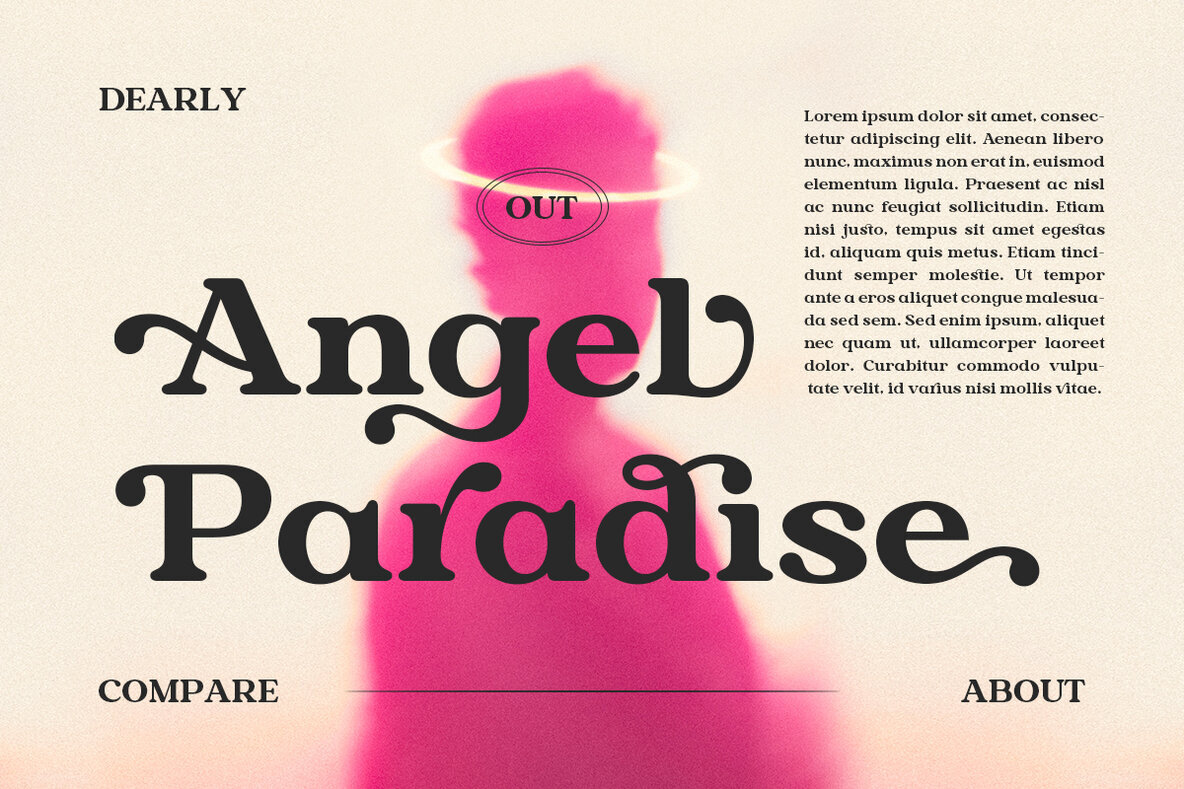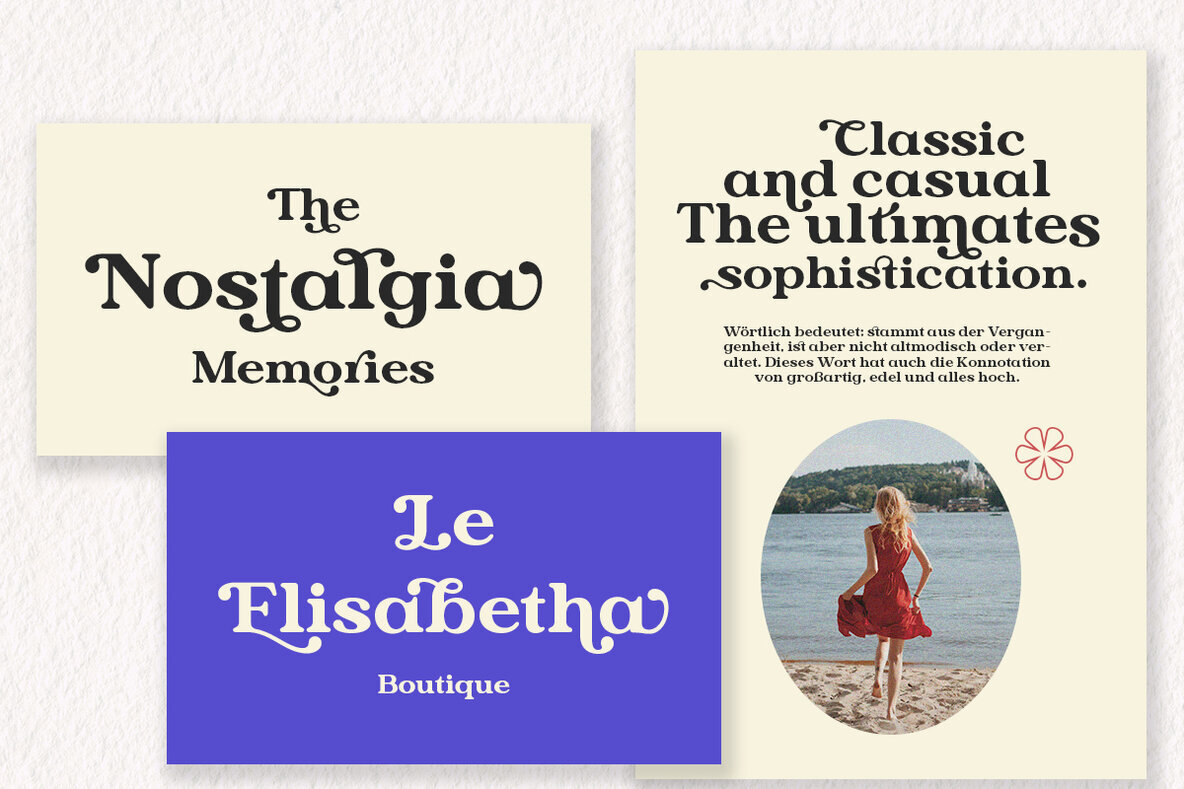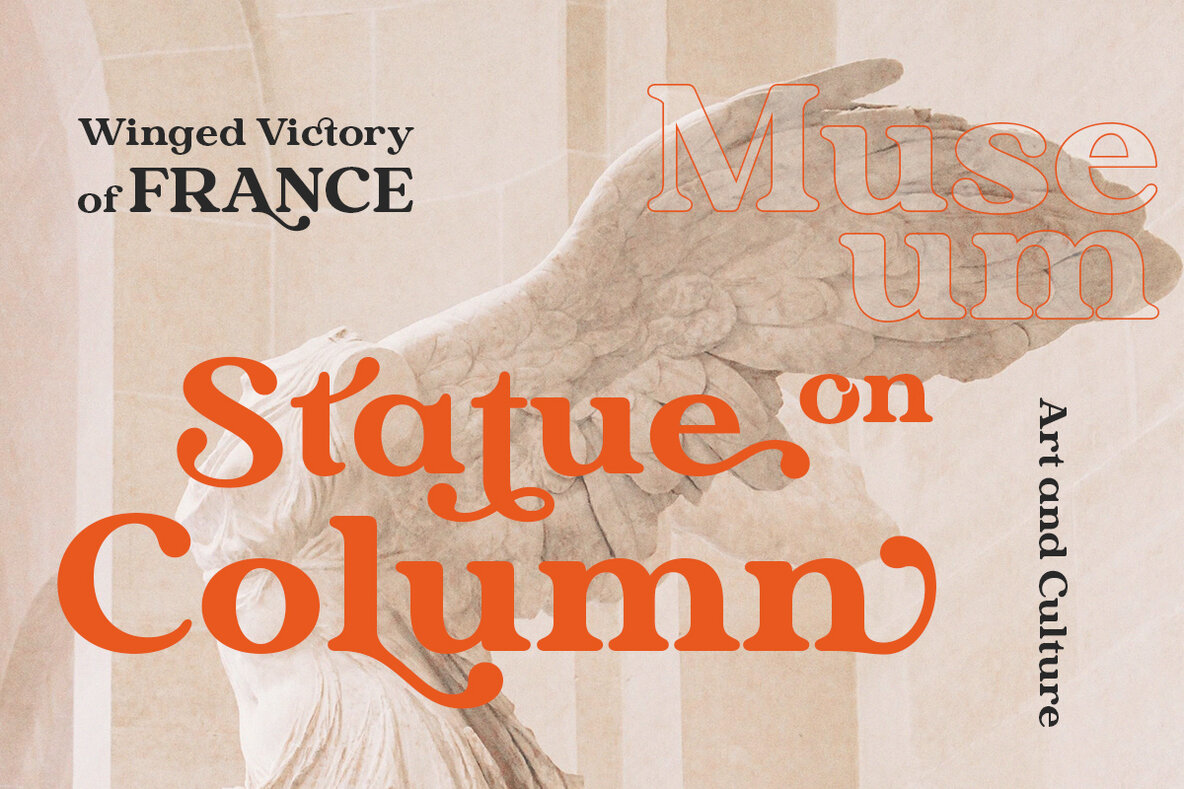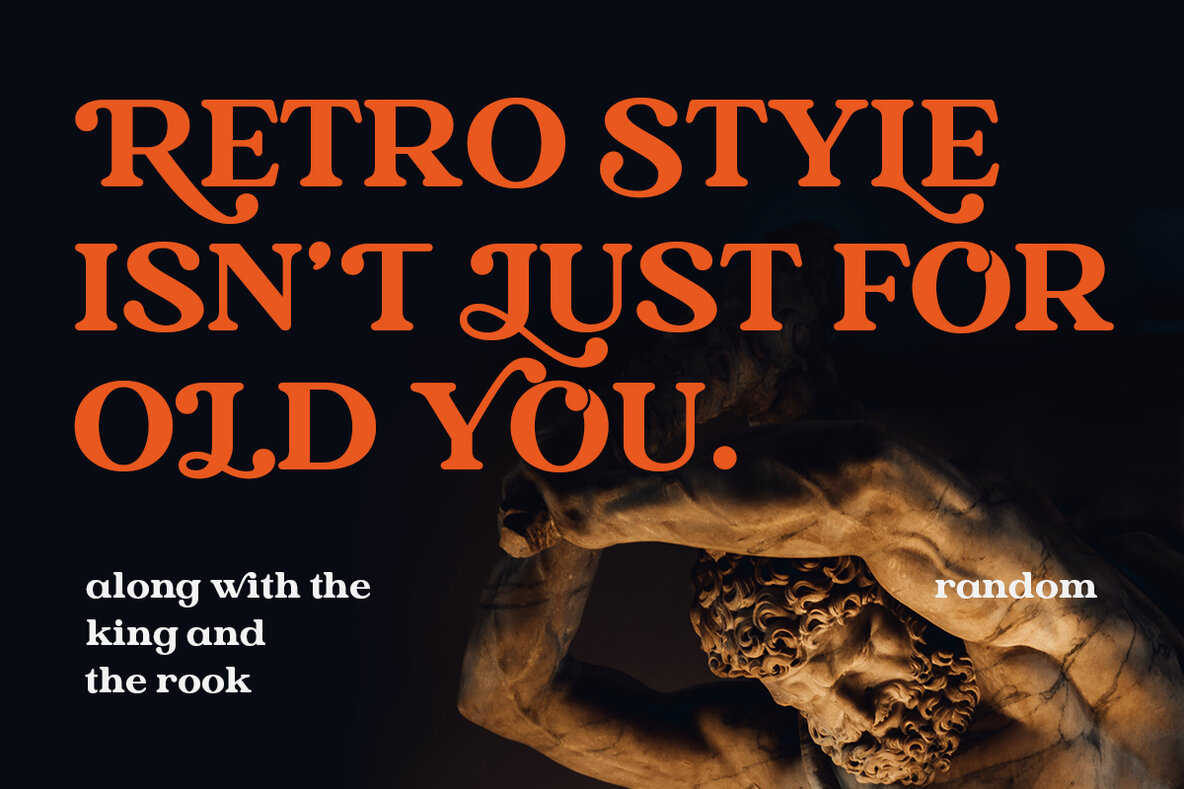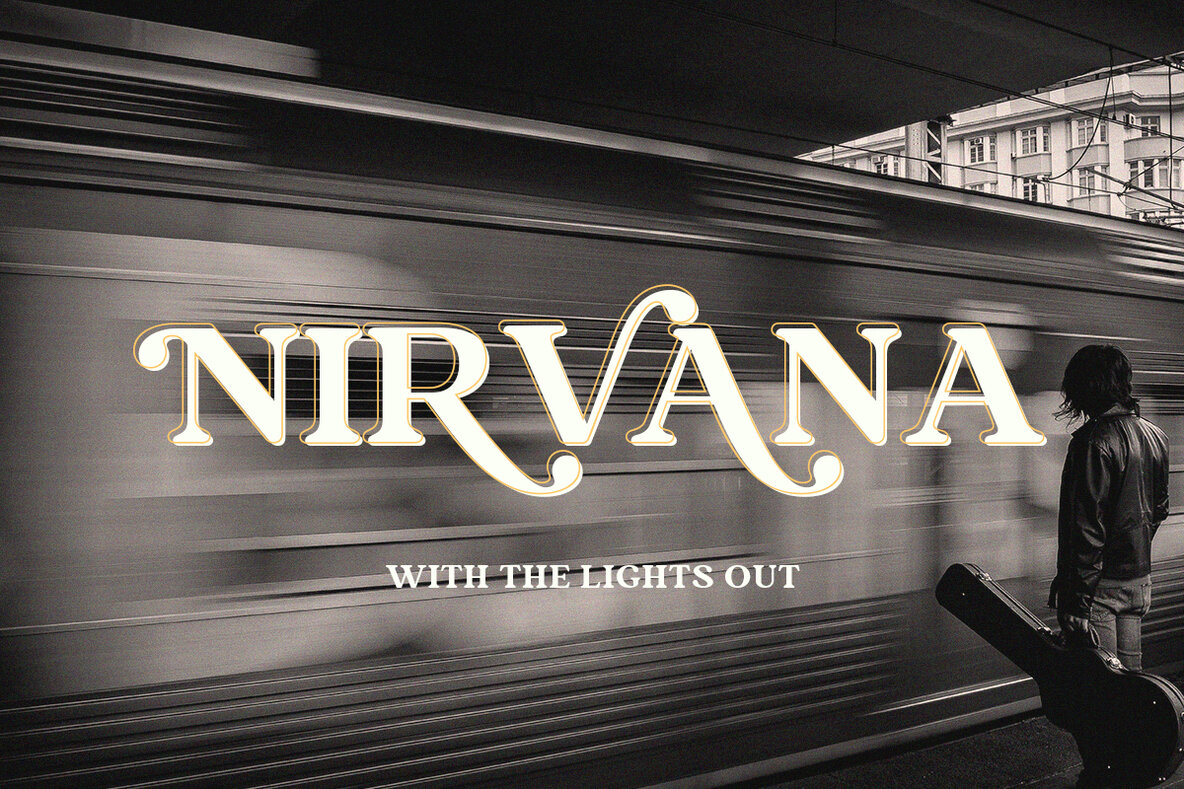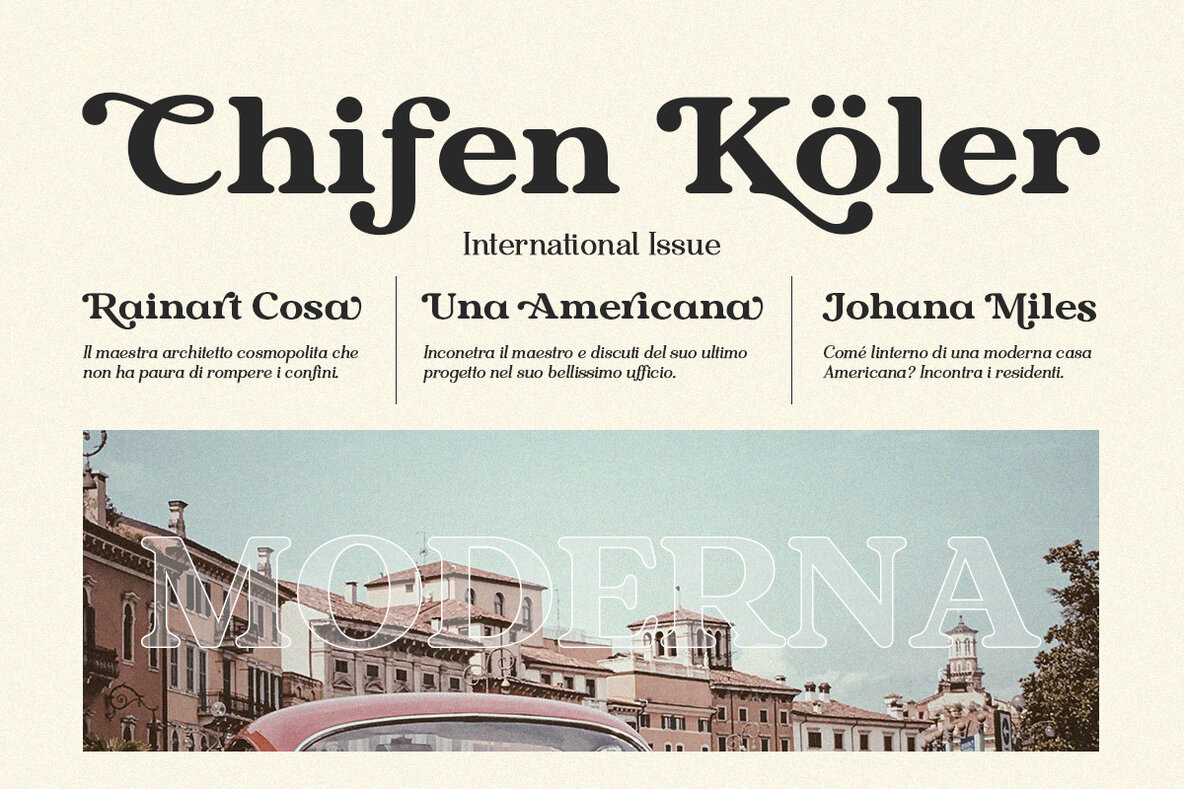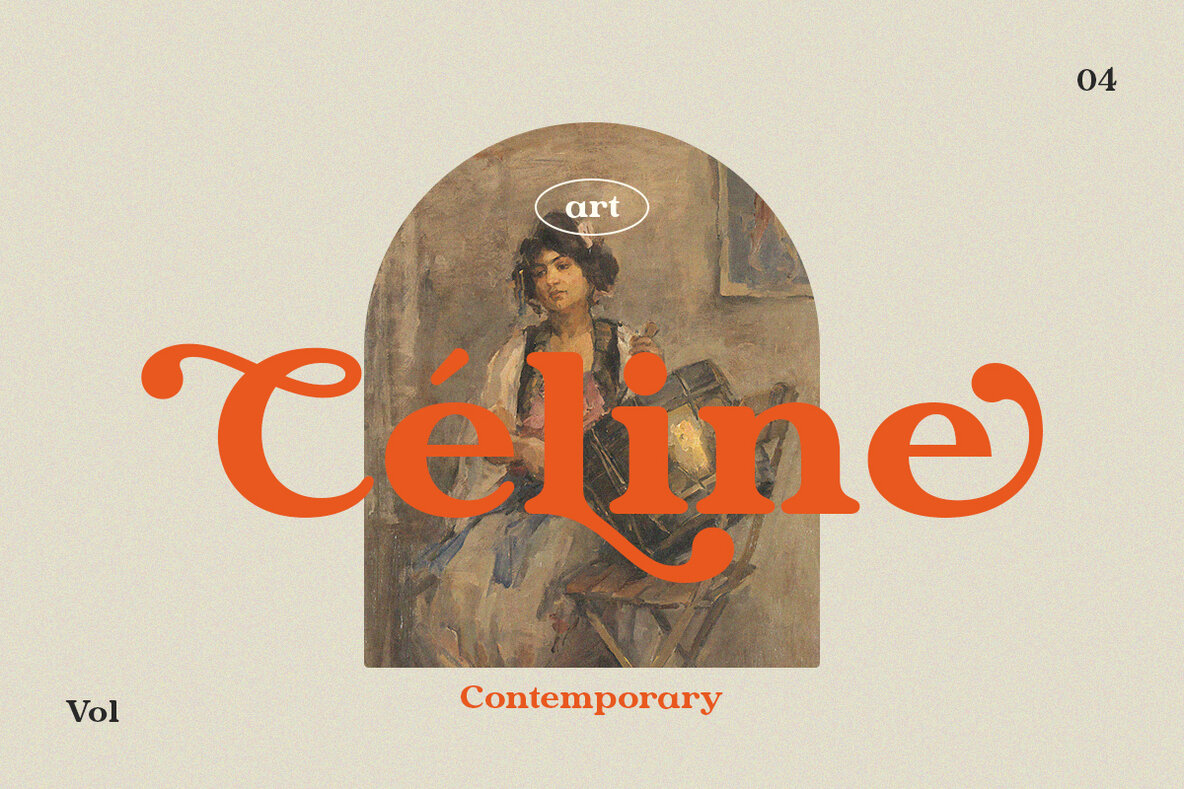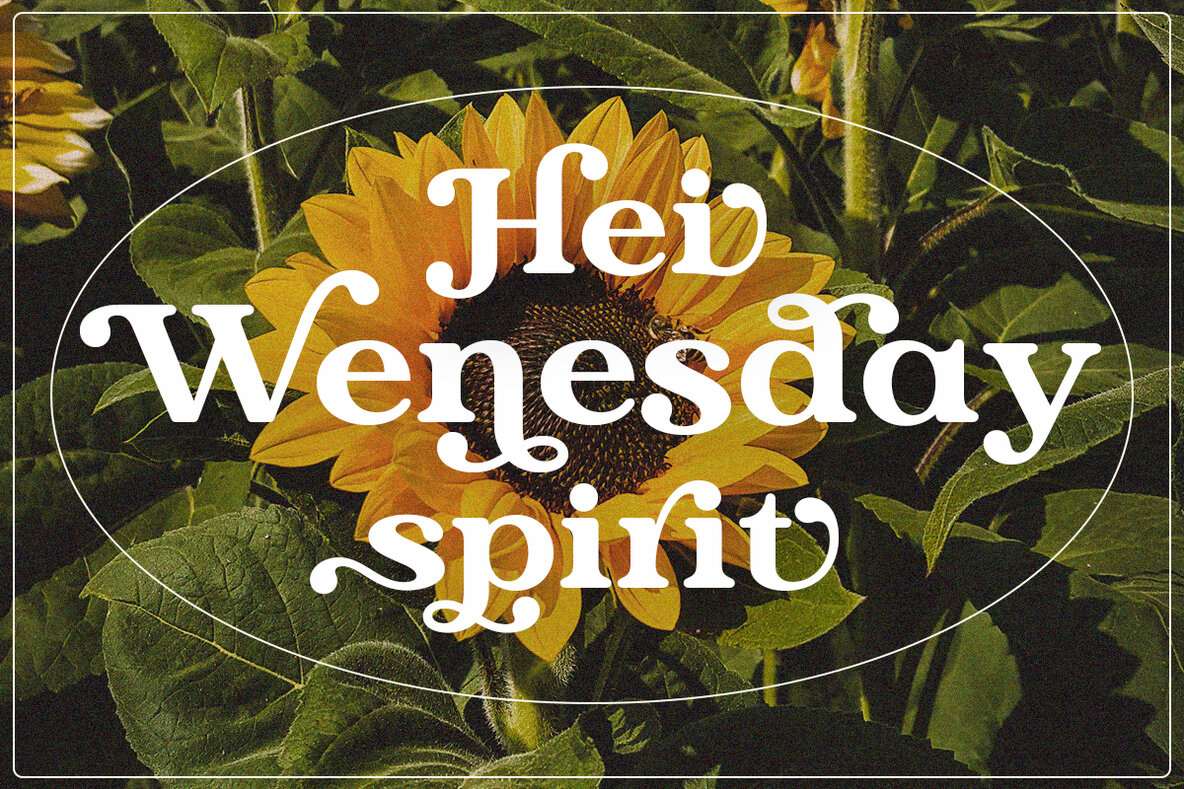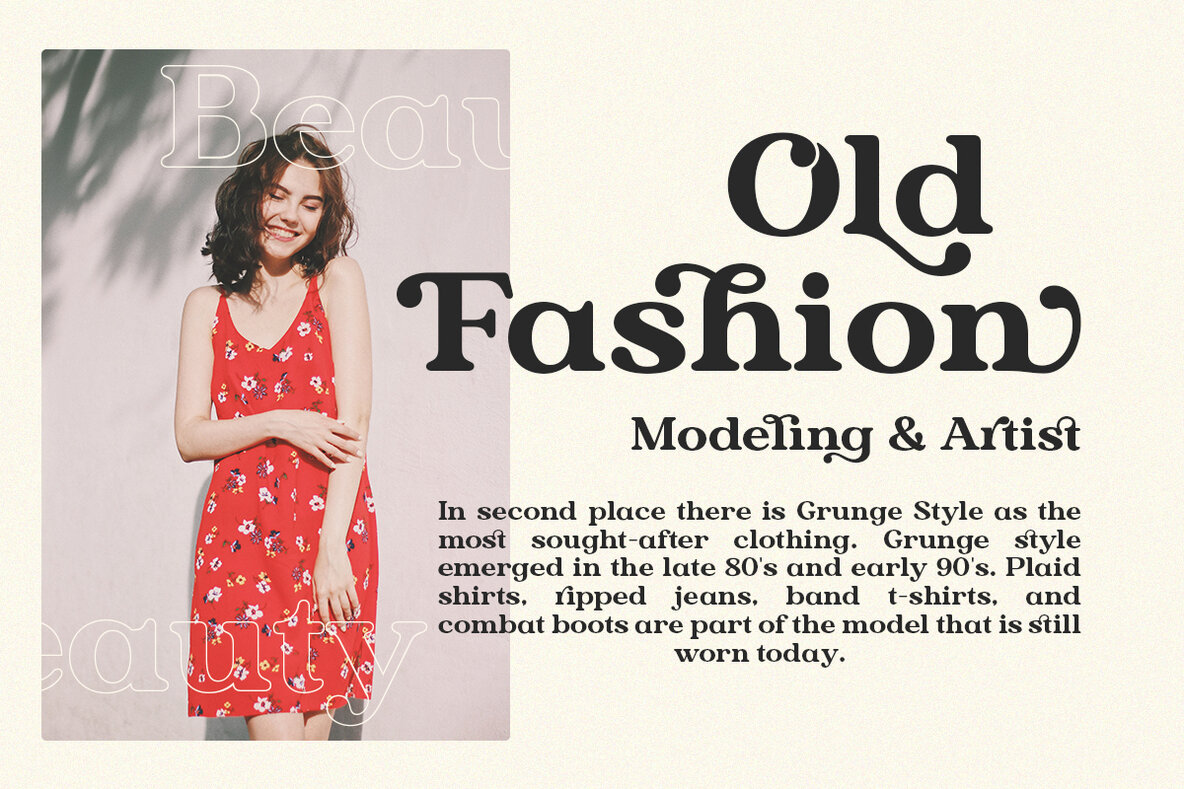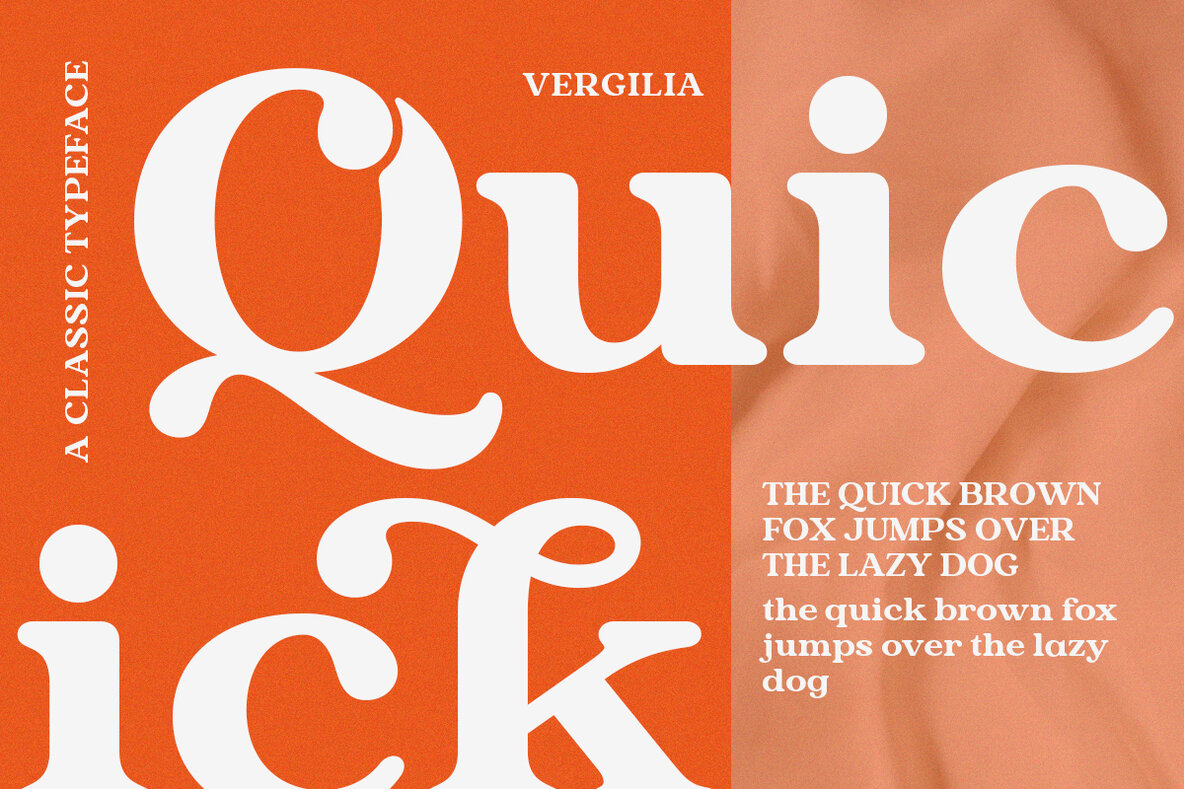
Vergilia Font
Vergilia is a sophisticated serif font that seamlessly blends modernity with a hint of vintage allure. Its bold letterforms ensure readability, making it an exemplary choice for various design applications. The addition of an outline style further enhances its versatility, supporting your creative endeavors with an extra layer of depth. Ideal for crafting logos, quotes, social media posts, branding projects, and more, Vergilia strikes a balance between aesthetic appeal and functionality, perfectly suited for everything from magazine editorials to wedding invitations.Vergilia: Modern Bold Serif Font with Retro Charm